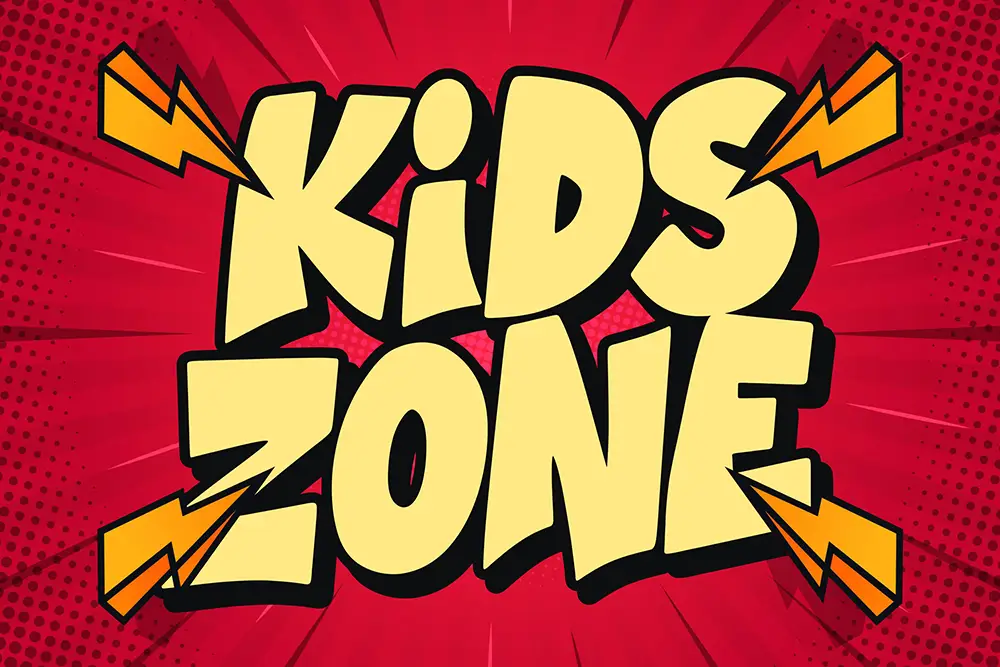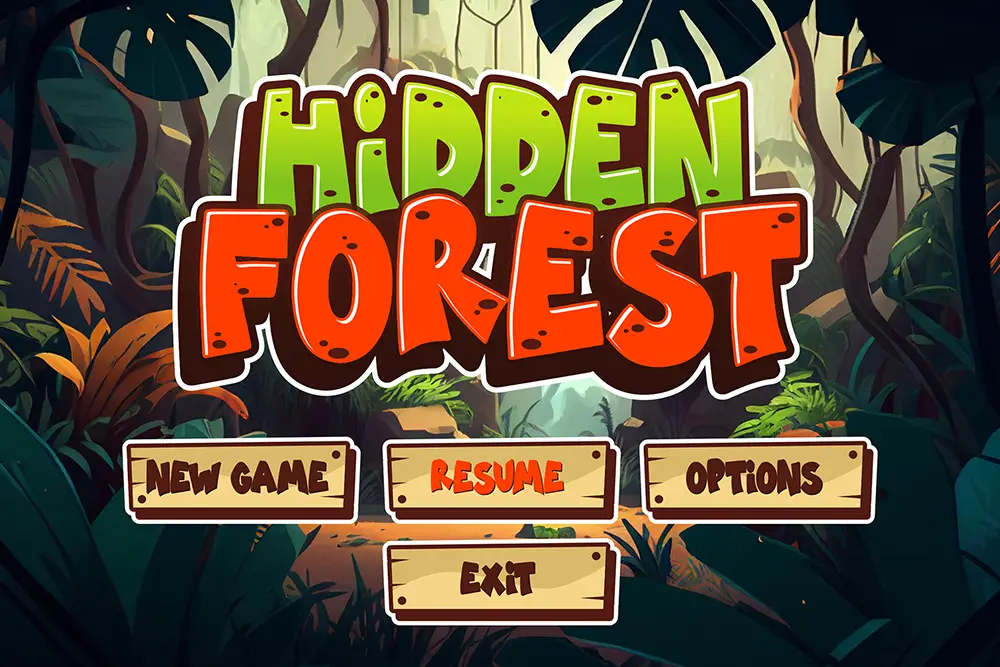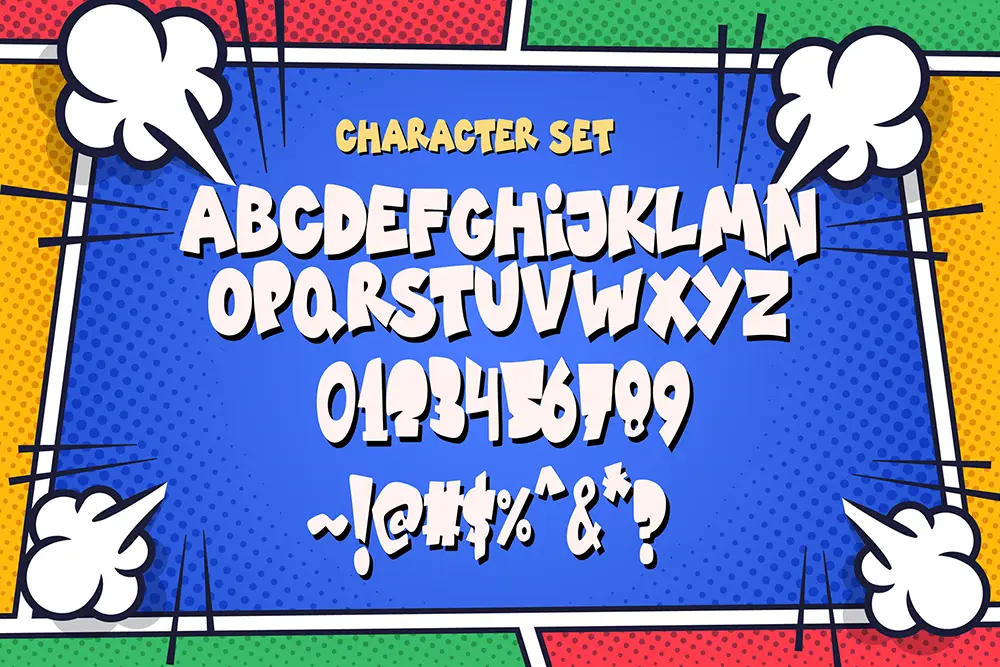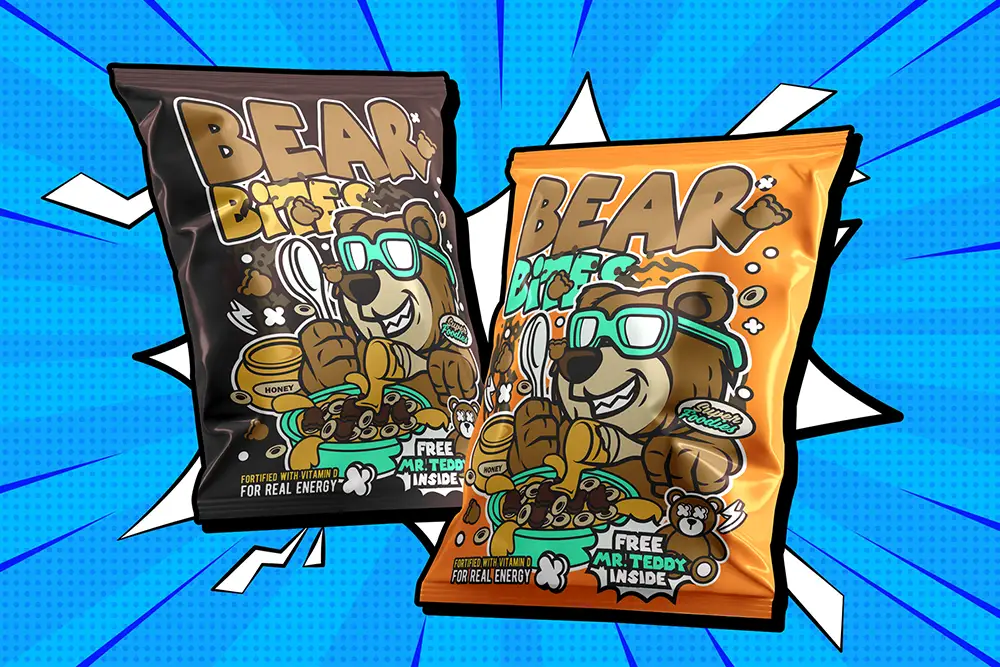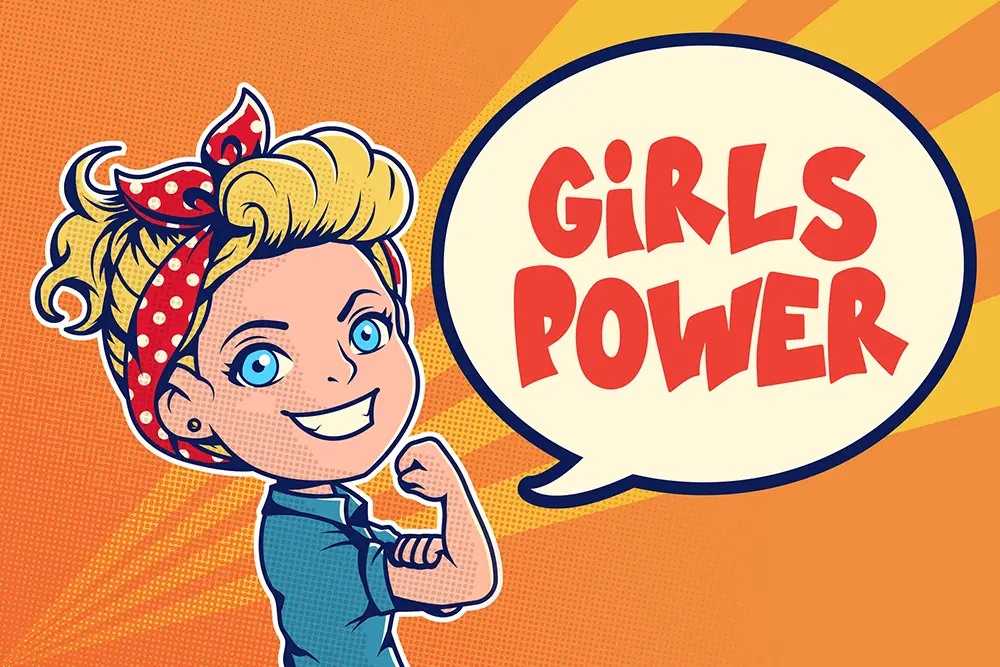
Boldie Chunks – Comical Display Font for Playful Creative Design
Typography sets the mood of every design, and nothing captures humor, energy, and joy better than a comical display font. Boldie Chunks – Comical Display Font is crafted for designers who want their projects to radiate fun, boldness, and playful charm. With exaggerated forms, chunky strokes, and quirky curves, this font is perfect for children’s books, comic posters, event flyers, and joyful branding.
As a comical display font, Boldie Chunks blends entertainment with clarity. It’s not only visually striking but also easy to read, making it an excellent choice for both print and digital designs.
Comical Display Font with Bold Fun
Boldie Chunks was designed to exaggerate playfulness without losing readability. Every character is full of personality, with chunky proportions and whimsical forms. This comical display font thrives in large-scale uses such as headlines, posters, or signage where humor and impact matter most.
The extended curves and bold outlines make it stand out as a must-have font for designers working on projects that demand excitement and laughter.
Key Features of Boldie Chunks – Comical Display Font
Every professional designer looks for fonts that balance creativity with functionality. Here are the highlights of Boldie Chunks – Comical Display Font:
• All Caps Alphabet: Perfect for bold titles and playful branding.
• Multilingual Support: Extended Latin coverage for global design projects.
• Alternates in Numbers: Adds unique personality to numeric design work.
• Playful Chunky Design: Heavy strokes with comic-inspired shapes.
• Optimized for Display: Works best for posters, event graphics, and branding.
Why Designers Love Boldie Chunks
Designers love Boldie Chunks because it offers everything they want in a comical display font: bold visibility, humor, and flexibility.
Here’s why it’s a favorite among creative professionals:
• Instant Playfulness: Adds humor and fun personality to any design.
• Versatile Application: From posters to digital media, it fits multiple formats.
• Numerical Alternates: Makes headlines, calendars, and event designs unique.
Boldie Chunks for Posters and Branding
Nothing demands attention like a bold poster headline. As a comical display font, Boldie Chunks makes event flyers, festival graphics, and promotional banners pop with energy. Its chunky letters communicate fun, making it ideal for family-friendly or playful brands.
For logos, Boldie Chunks sets a tone of creativity and friendliness. Brands targeting kids, comics, or lighthearted audiences can rely on this typeface to communicate their identity with clarity and charm.
Boldie Chunks in Digital and Social Media
In the digital age, visuals must grab attention instantly. Boldie Chunks is the comical display font that thrives in social media content, YouTube thumbnails, and fun digital campaigns. Its exaggerated forms make posts stand out on feeds crowded with visuals.
• Character Set: All Caps, Numbers with Alternates, Punctuation
• Category: Comical Display Font
• Best Uses: Posters, Logos, Event Flyers, Children’s Books, Digital Media
Why Boldie Chunks is the Comical Display Font You Need
Trends in typography show a growing demand for fonts that radiate fun and personality. Boldie Chunks answers that demand. As a comical display font, it blends boldness with humor, giving designers a reliable tool for projects where fun is the core message.
By using Boldie Chunks, you’re not just choosing a typeface—you’re creating designs that spark joy, laughter, and connection.
Boldie Chunks – Comical Display Font is your go-to choice for playful, bold, and unforgettable designs. From posters to branding, it brings humor and creativity to every project. With its all caps alphabet, multilingual support, and number alternates, it’s practical as well as fun.